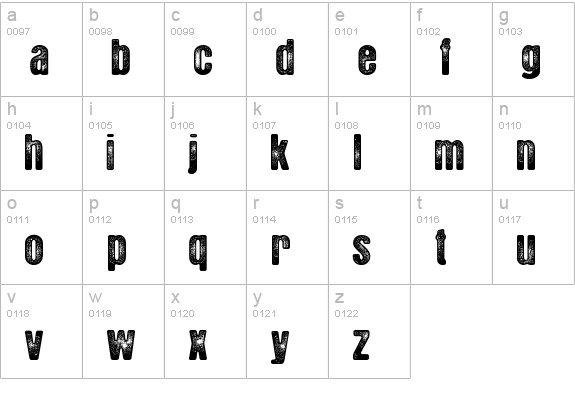
Hotel Coral Essex Font Details
Hotel Coral Essex font is a stunning and elegant typeface that exudes sophistication and charm. With its unique, flowing curves and sharp edges, this font is perfect for adding a touch of luxury to any project. Whether you're designing a wedding invitation, a business card, or a website, Hotel Coral Essex font will elevate your design to the next level. The best part? Hotel Coral Essex font is freely available to download at FontsMarket.com. You can easily access this beautiful font and use it in your projects without any cost. Let Hotel Coral Essex font be the perfect addition to your design arsenal, bringing a touch of class and elegance to everything you create.